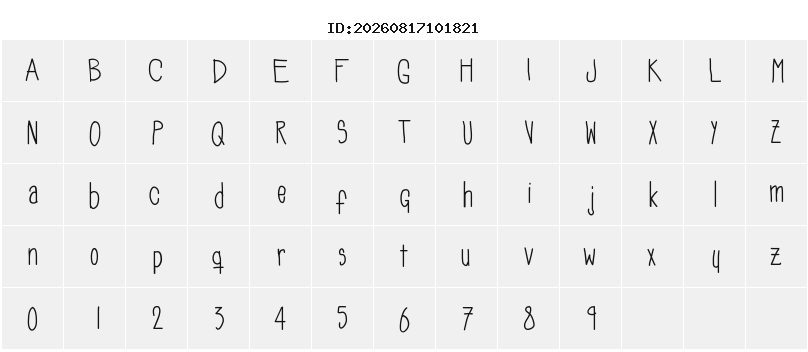
SoozieQs Preview
• Font Name: SoozieQs
• Full Font Name: SoozieQs
About SoozieQs.ttf
SoozieQs.ttf is a modern, elegant sans-serif font designed for ultimate readability and visual harmony. Perfect for branding, headlines, web design, and print materials.